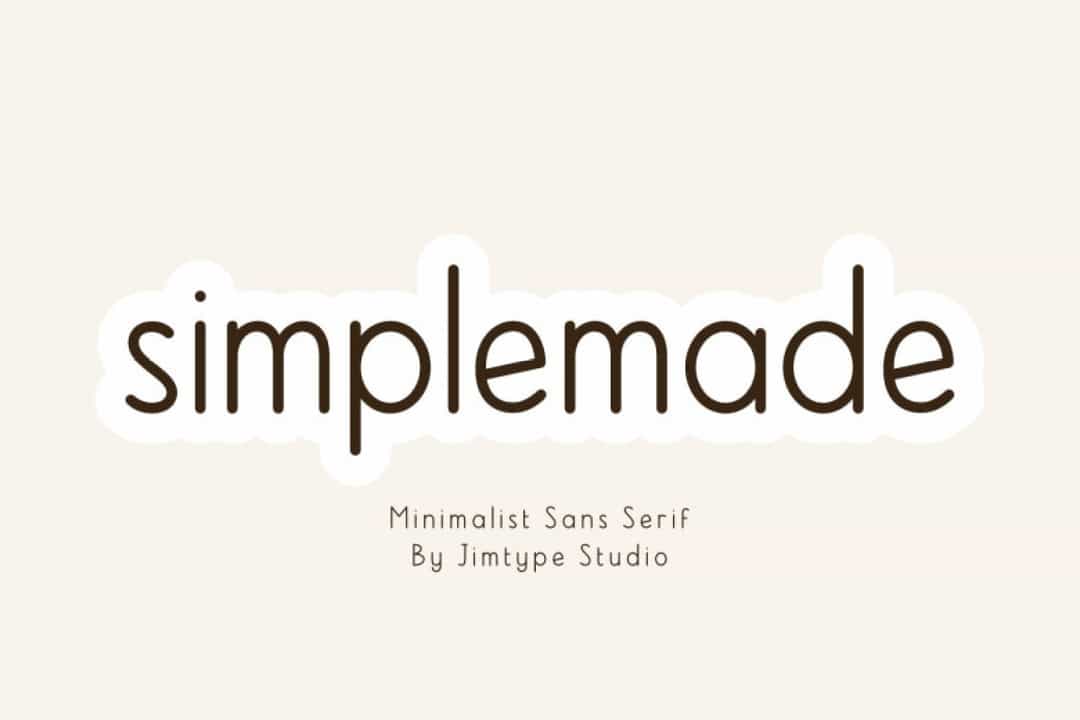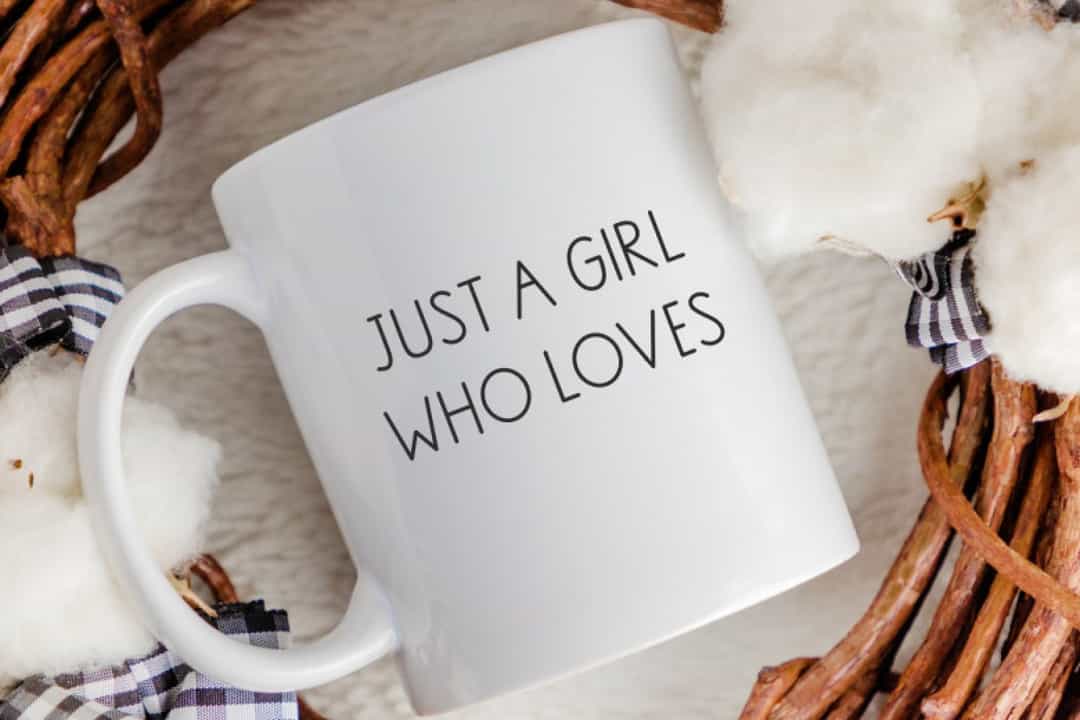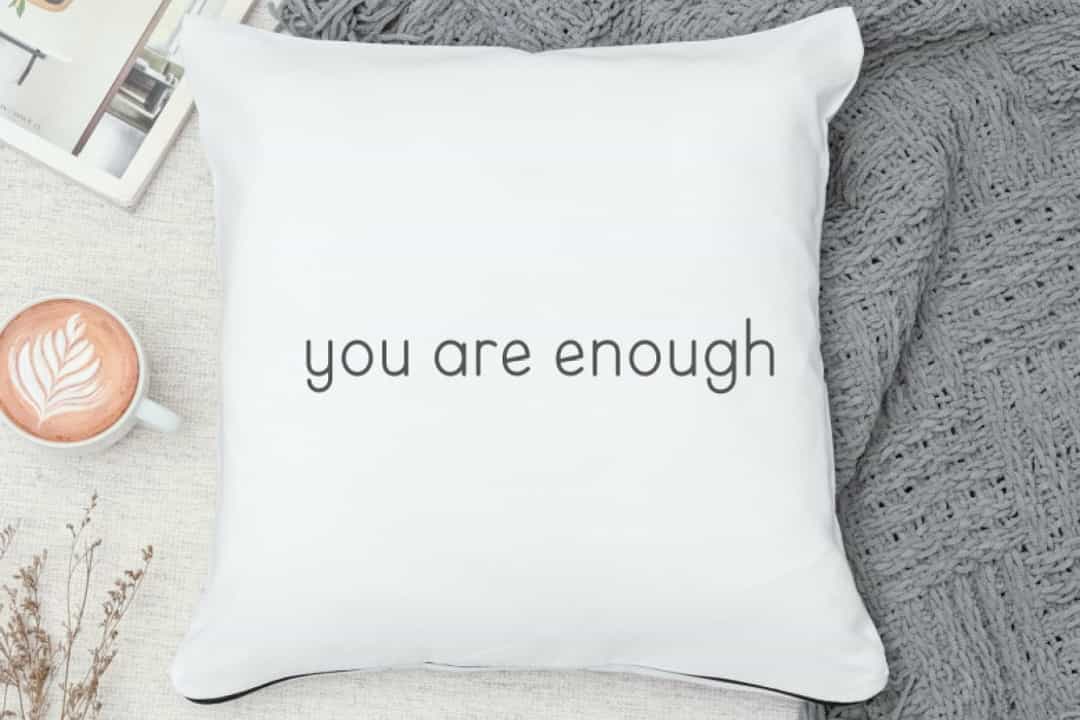
“Simplemade Font”, our monoline sans-serif font designed specifically to appeal to people who appreciate crisp lines and farmhouse aesthetics, stands as the epitome of simplicity and flexibility when it comes to fonts.